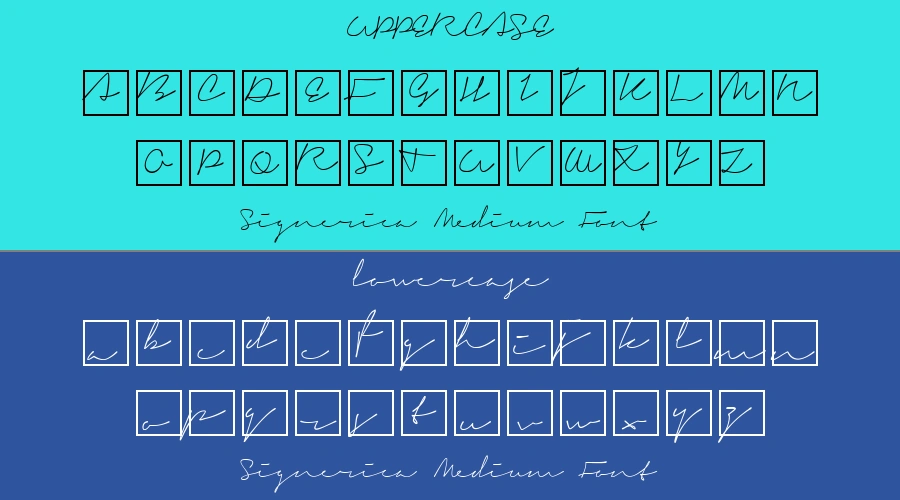
About Signerica Medium Font
Signerica Medium Font stands out for its distinctive combination of width contrast and reliability. Ideal for advertising campaigns, it provides the durability and consumer connection that professional projects demand. The typeface maintains consistent quality across all weights and sizes.
Key features include refined architectural precision and practical ordinals, enhancing typographic expression. In digital platforms applications, Signerica Medium Font demonstrates exceptional special character access. The terminal style and subtle details contribute to its distinctive character and professional appeal.